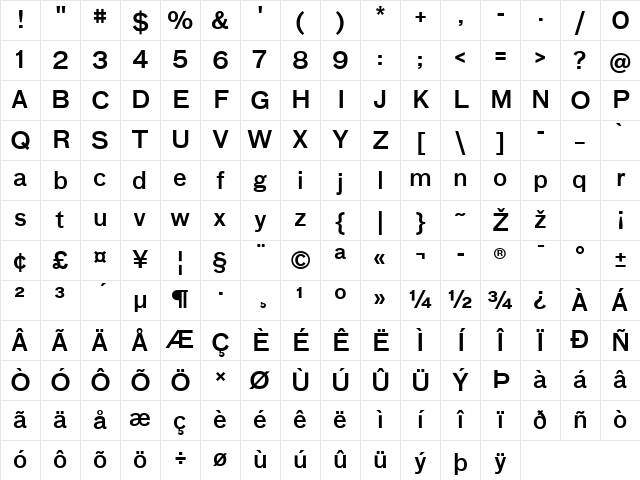
Complete BauLF-Medium Regular glyph index. Displaying only characters natively supported by BauLF-Medium Regular font.
BauLF-Medium is a composed and adaptable typeface that performs quietly and consistently across a wide range of design contexts.
Who designed the BauLF-Medium Regular font?
This font was published by Christian Schwartz published by FontShop International for the FontFont Library. Check the technical specs section for copyright and designer details.